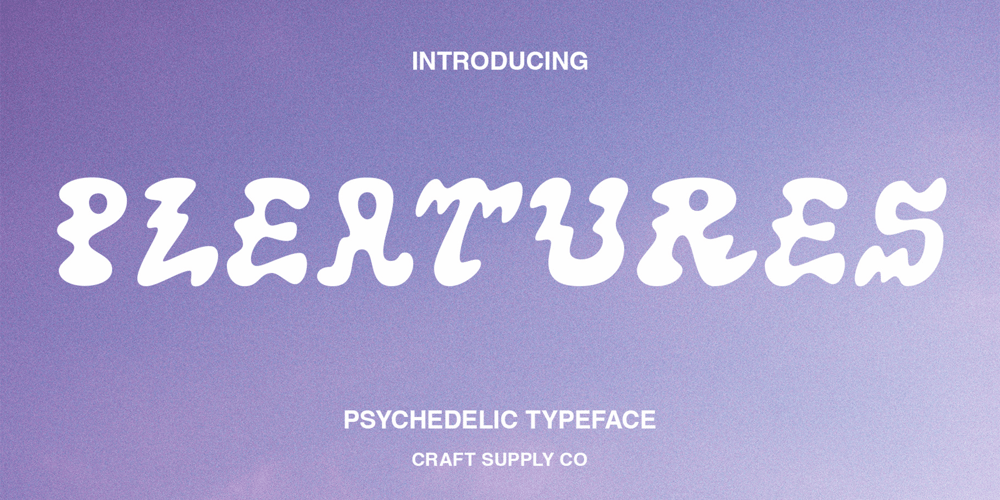
Pleatures Font Family was designed by Wahyu Hadi Yuana and published by Craft Supply Co. Pleatures contains 2 styles and family package options. Pleatures is a psychedelic typeface with riotous shape that great to make your design vibing. It can be used to create almost all types of design projects like print materials. Just use your imagination and your project will become more alive and look great than ever with this typeface.